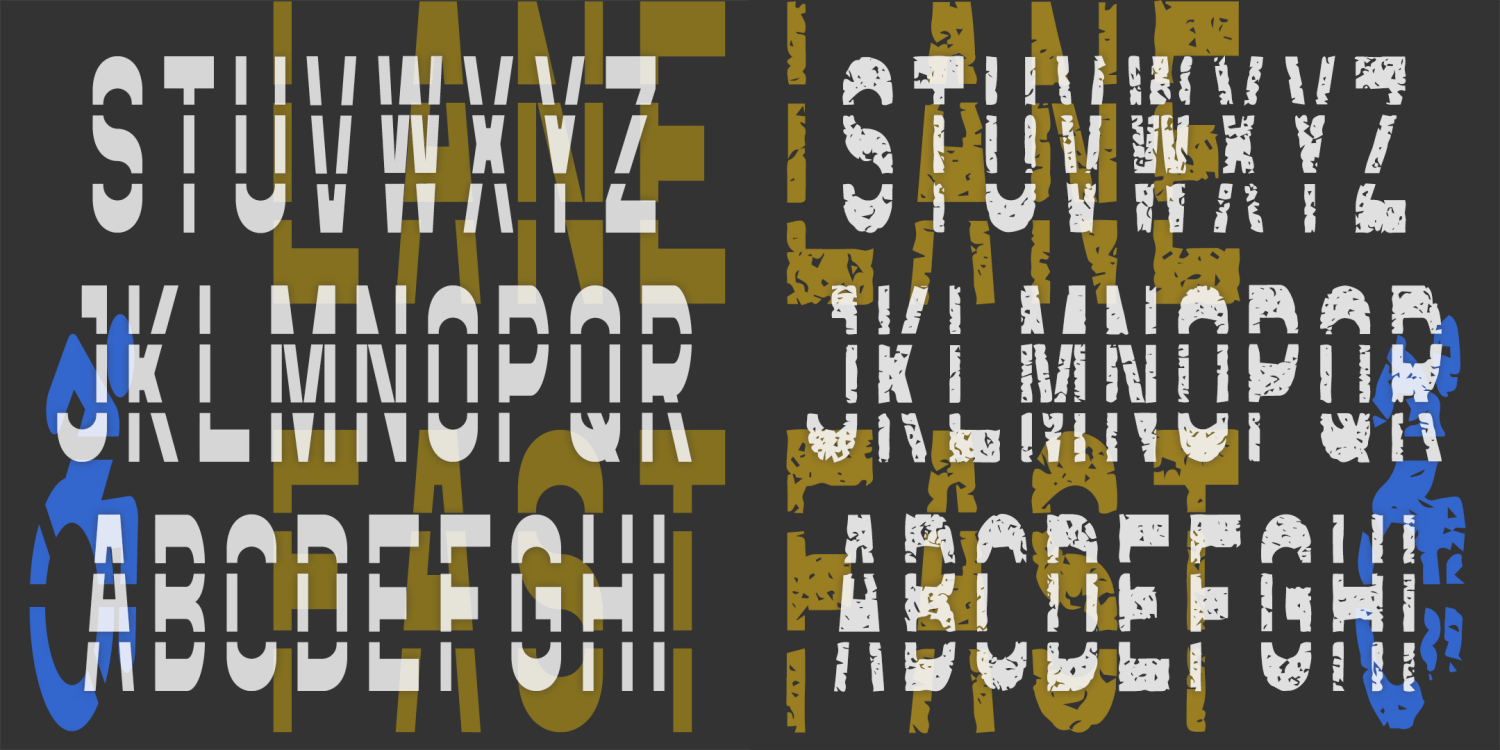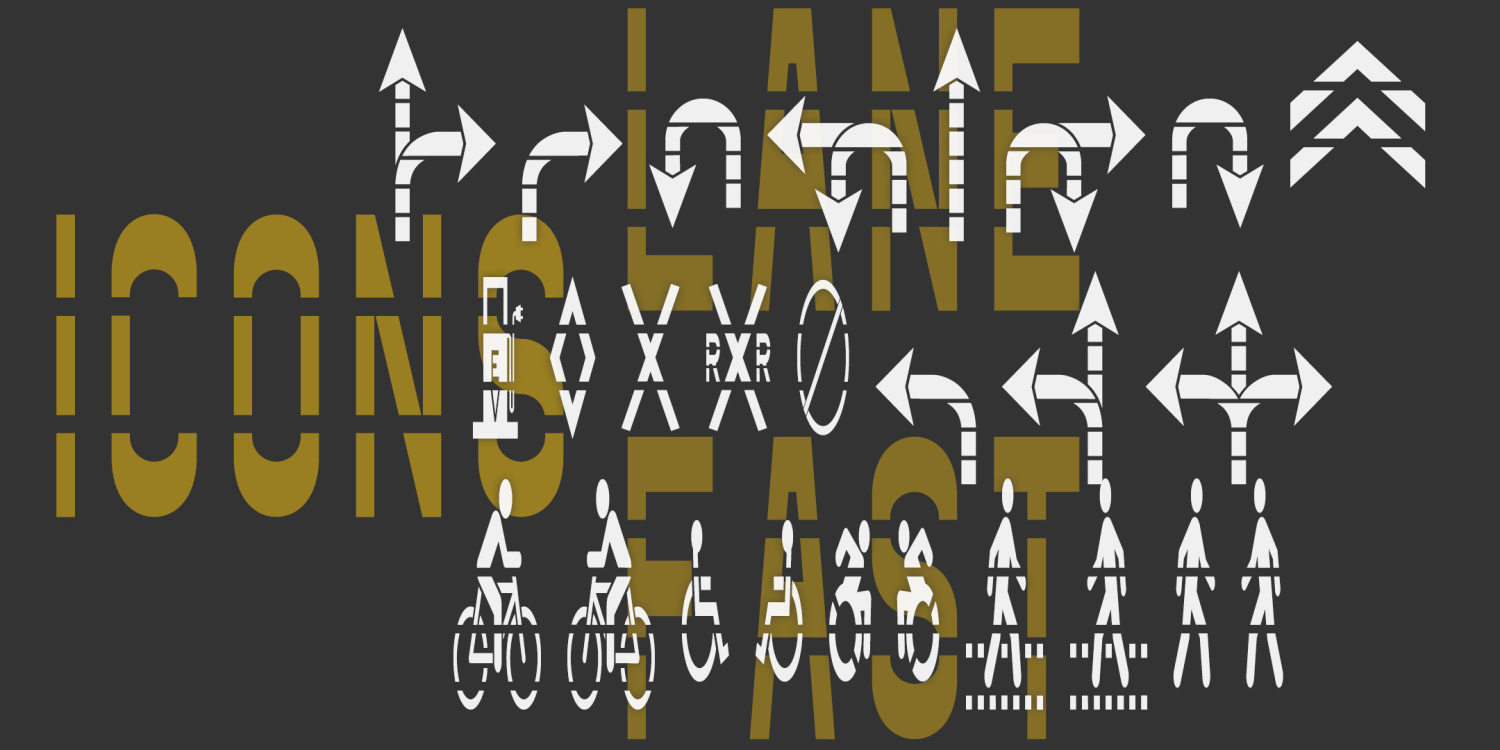
Fast Lane
The Fast Lane fonts were inspired by roadway and parking lot markings, reflecting both the stencil style and the stretched form that looks normal when viewed at an angle. The Icons fonts includes symbols and arrows to accompany the letters and numbers, in both stretched and unstretched versions for your convenience. The regular fonts could be used to make printable stencils; I've also created Rough versions with a pavement texture for other applications.
The Fast Lane font family includes 115 glyphs.